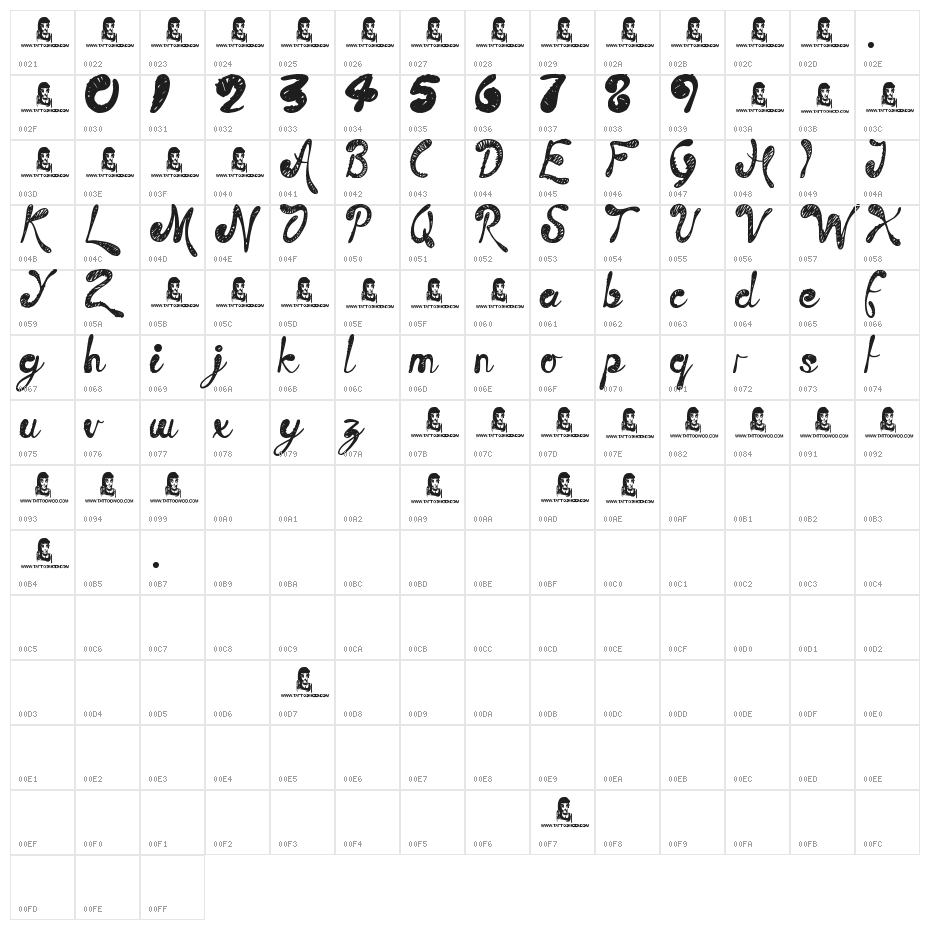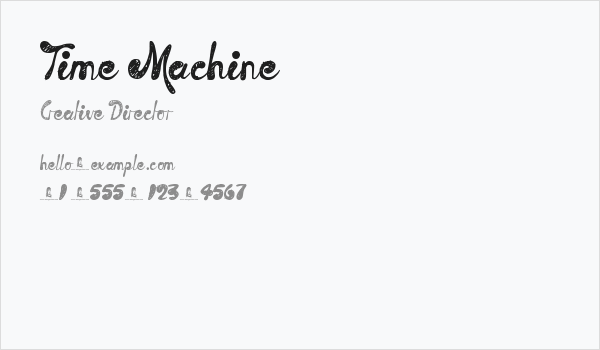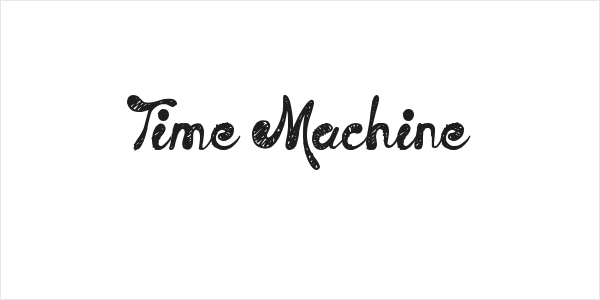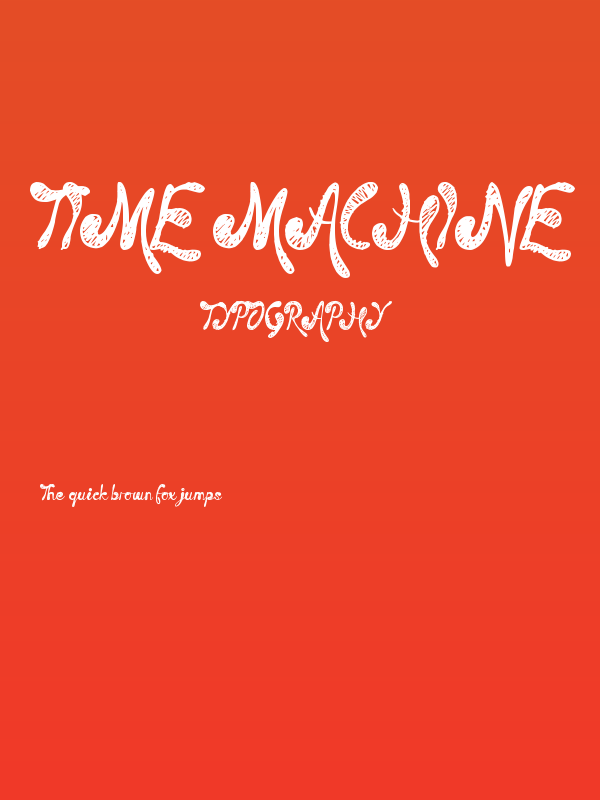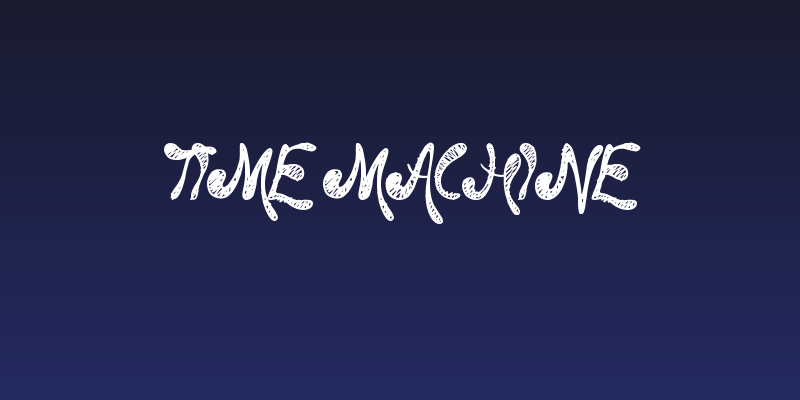
Time Machine Font
Time Machine Description
This font features a unique, hand-drawn style with a playful and whimsical appearance. The letters are bold and have a textured, scribbled effect that adds a sense of movement and dynamism. The uppercase and lowercase letters maintain a consistent style, with rounded edges and a slightly irregular shape that enhances its informal and artistic vibe. The numbers and special characters follow the same design principles, making the font cohesive and versatile. Its distinctive look makes it suitable for creative projects that require a touch of personality and flair.
Proposed ProjectsIdeal for children's books, creative posters, playful branding, and artistic invitations.